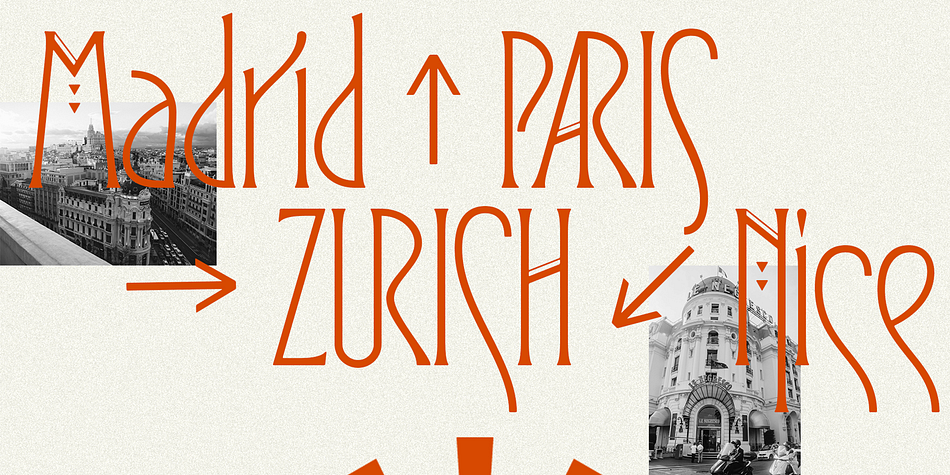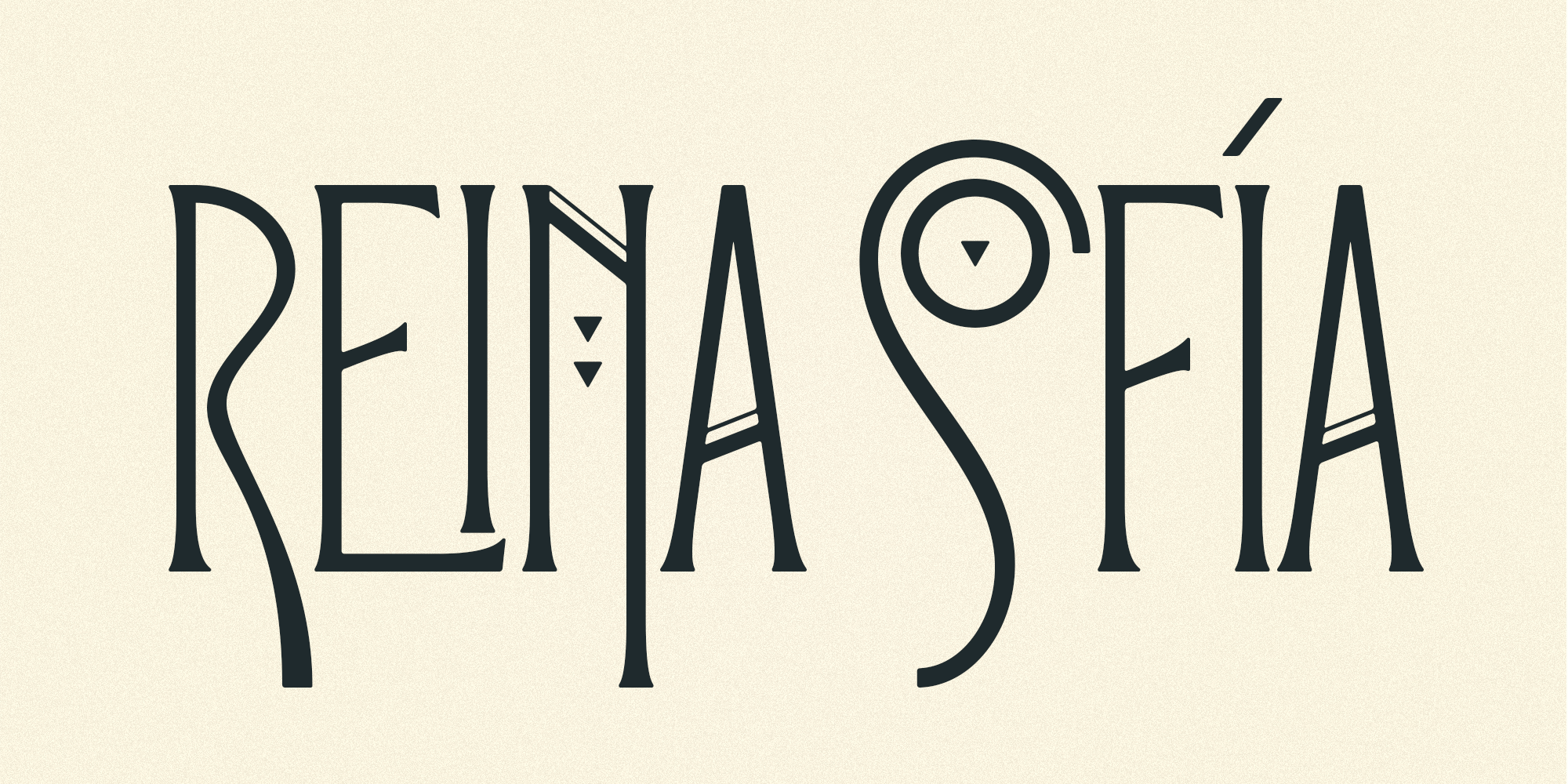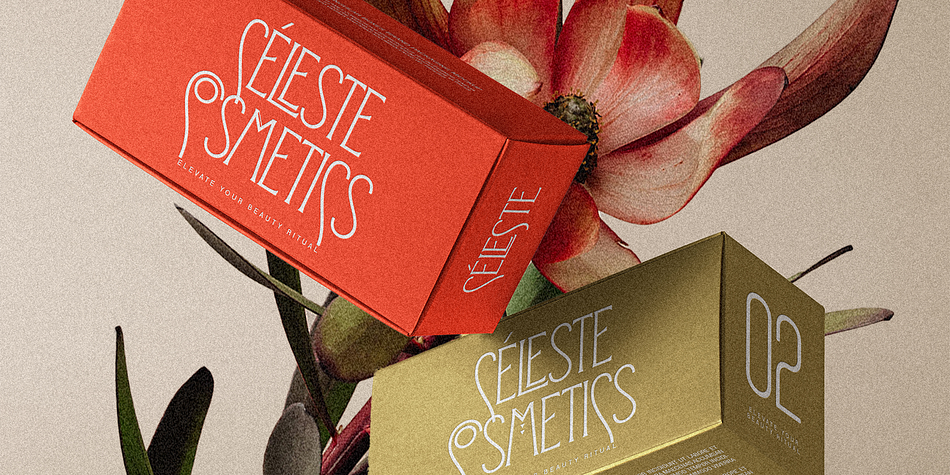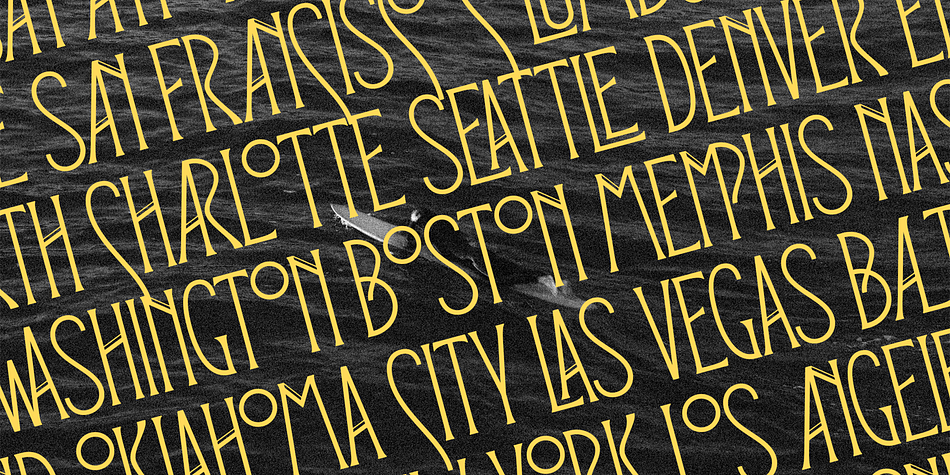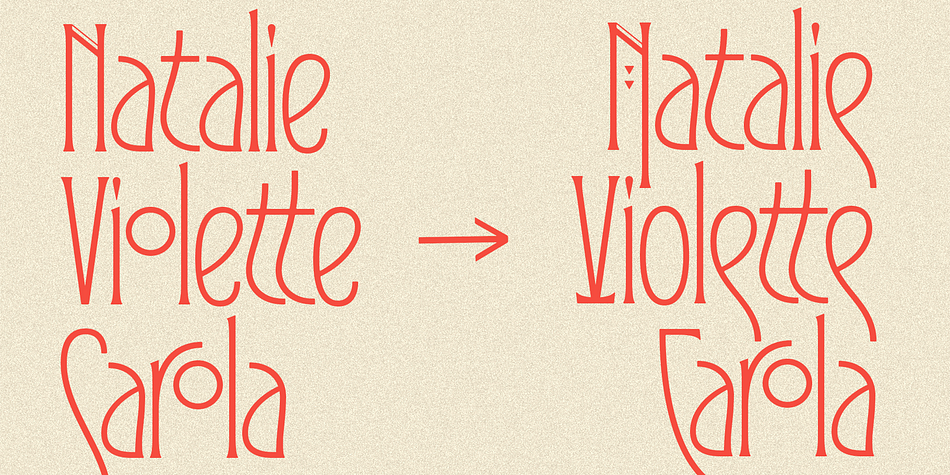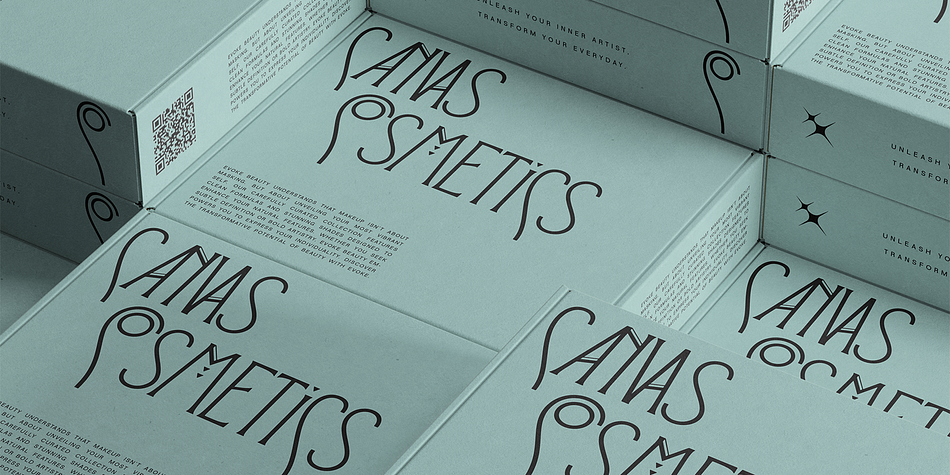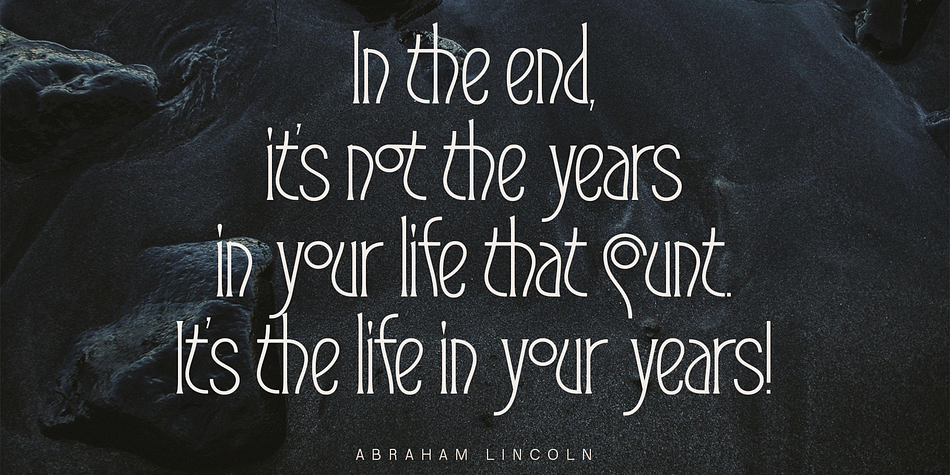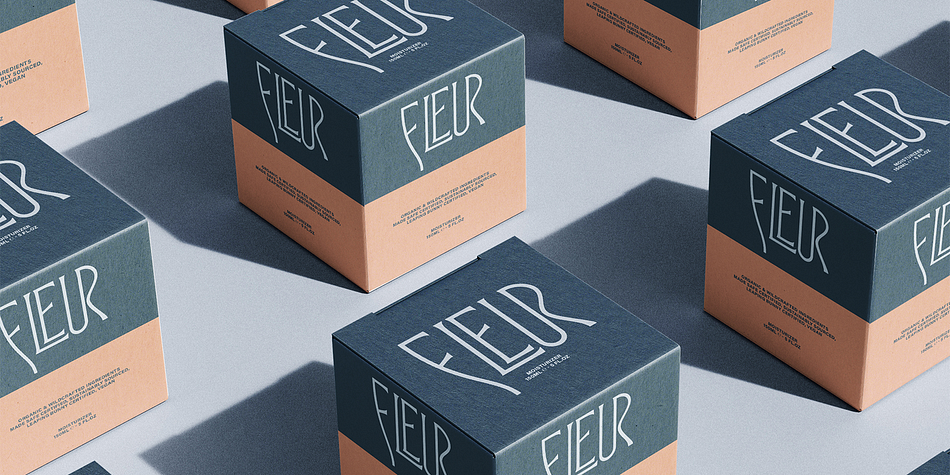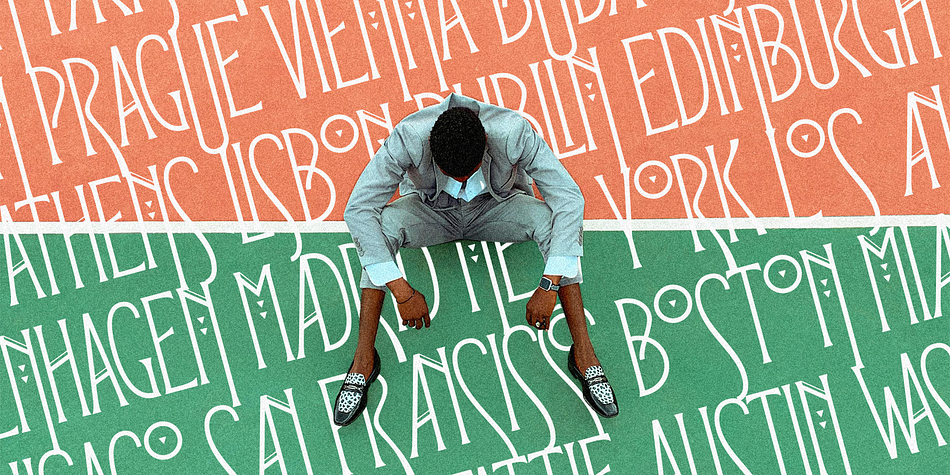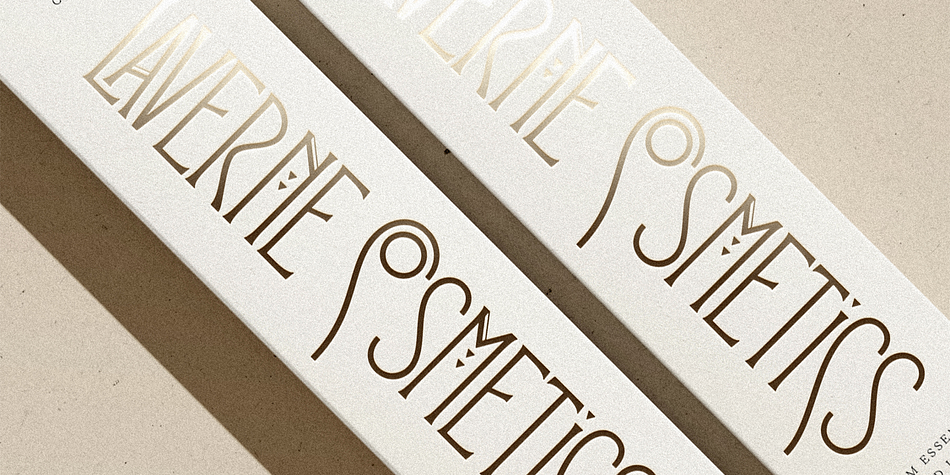
Immerse yourself in the elegance and artistry of Reina Sofía, a vintage-inspired typeface that pays homage to the grandeur of Madrid’s iconic Reina Sofía Museum. Drawing inspiration from the museum’s rich collection of Art Deco and Art Nouveau masterpieces, this font embodies a bygone era of sophistication and creative expression.
With over 150 meticulously crafted ligatures and alternate letters, Reina Sofía invites you to explore a world of typographic possibilities. Each character exudes the opulence and charm of early 20th-century design, while the intricate details and flowing lines capture the essence of artistic movements that shaped an era.
Unleash the versatility of Reina Sofía in:
Elegant invitations and stationery: Add a touch of vintage allure to weddings, galas, and special occasions.
Art Deco and Art Nouveau-inspired designs: Create posters, logos, and packaging that evoke the spirit of the early 20th century.
Luxury branding and editorial layouts: Elevate your brand identity with a sophisticated and timeless typographic voice.
Historical or period-themed projects: Transport your audience to another era with authentic and evocative typography.
Creative headlines and display text: Make a bold statement with eye-catching and artistic lettering.
Whether you’re designing a sophisticated invitation, crafting a vintage-inspired logo, or adding a touch of elegance to your latest project, Reina Sofía offers a versatile and captivating typographic voice. Let the spirit of Madrid’s artistic heritage guide your creative journey as you infuse your designs with the timeless allure of Reina Sofía.